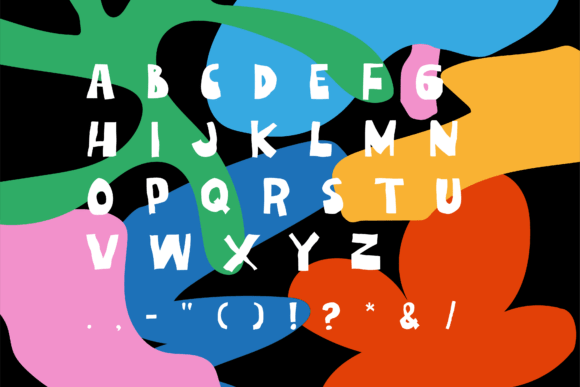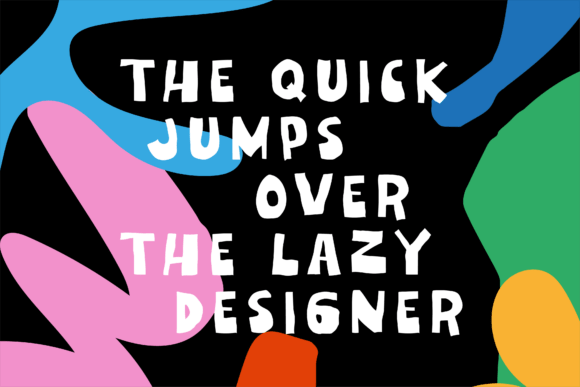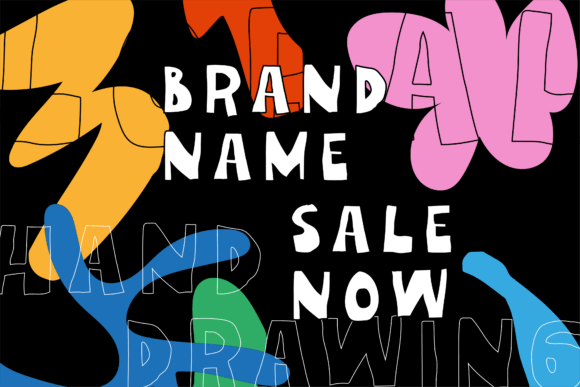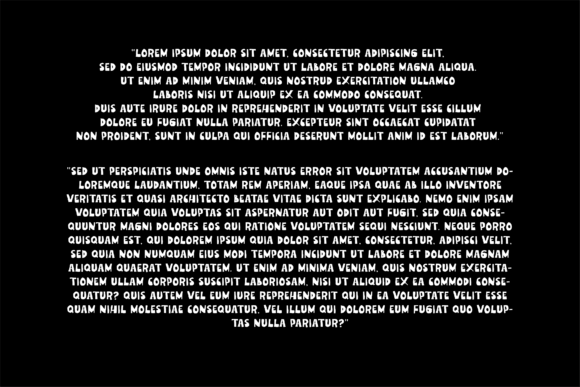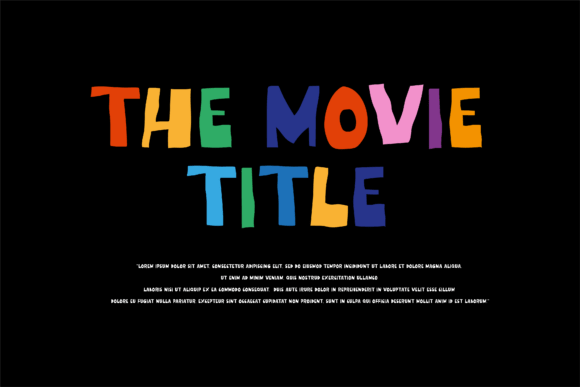
Unleash Your Creativity with Floral Handdrawing Font
Are you tired of using the same old fonts in your designs? Do you want to add a touch of personality and whimsy to your projects? Look no further than Floral Handdrawing Font, a captivating hand-drawn font that is sure to take your designs to the next level. With its playful, wild, and free-spirited aesthetic, Floral Handdrawing Font is the perfect addition to any designer’s toolkit.
The Perfect Font for Creative Minds
Floral Handdrawing Font is more than just a font – it’s an expression of creativity and individuality. Designed to complement cool brand styles, this stunning display font injects an incredibly joyful energy into any design. Whether you’re a designer, crafter, or DIY enthusiast, Floral Handdrawing Font is the perfect way to add a personal touch to your projects.
Key Features of Floral Handdrawing Font
- Hand-drawn with love: Each letter and swirl has been carefully crafted by hand, giving Floral Handdrawing Font a unique and organic feel.
- Playful and whimsical: With its wild and free-spirited aesthetic, Floral Handdrawing Font is perfect for designs that require a touch of personality.
- Instantly recognizable: This stunning display font makes a memorable statement, ensuring your designs stand out from the crowd.
- Versatile: Use Floral Handdrawing Font in a variety of projects, from branding and advertising to crafting and DIY.
How to Use Floral Handdrawing Font in Your Designs
Floral Handdrawing Font is incredibly easy to use, even for those who are new to hand-drawn fonts. Here are a few ideas to get you started:
- Branding and logos: Use Floral Handdrawing Font to create a unique and memorable logo that reflects your brand’s personality.
- Social media graphics: Add a touch of whimsy to your social media graphics, from Facebook posts to Instagram stories.
- Stationery and invitations: Create beautiful, one-of-a-kind stationery and invitations that showcase your personal style.
- Crafting and DIY projects: Use Floral Handdrawing Font to add a personal touch to your crafting and DIY projects, from scrapbooking to home decor.
Why Designers and Crafters Love Floral Handdrawing Font
Floral Handdrawing Font has quickly become a favorite among designers and crafters, and for good reason. Here are just a few reasons why:
- Unique and eye-catching: Floral Handdrawing Font is a breath of fresh air in a world of generic fonts.
- Easy to use: This hand-drawn font is surprisingly easy to use, even for those who are new to design.
- Versatile: From digital designs to handmade crafts, Floral Handdrawing Font can be used in a wide range of projects.
- High-quality: With its clear and crisp lines, Floral Handdrawing Font is perfect for both digital and print designs.
In conclusion, Floral Handdrawing Font is a must-have for any designer or crafter looking to add a touch of personality and whimsy to their projects. With its playful, wild, and free-spirited aesthetic, this stunning display font is sure to take your designs to the next level. So why wait? Unleash your creativity with Floral Handdrawing Font today and watch your designs come alive!